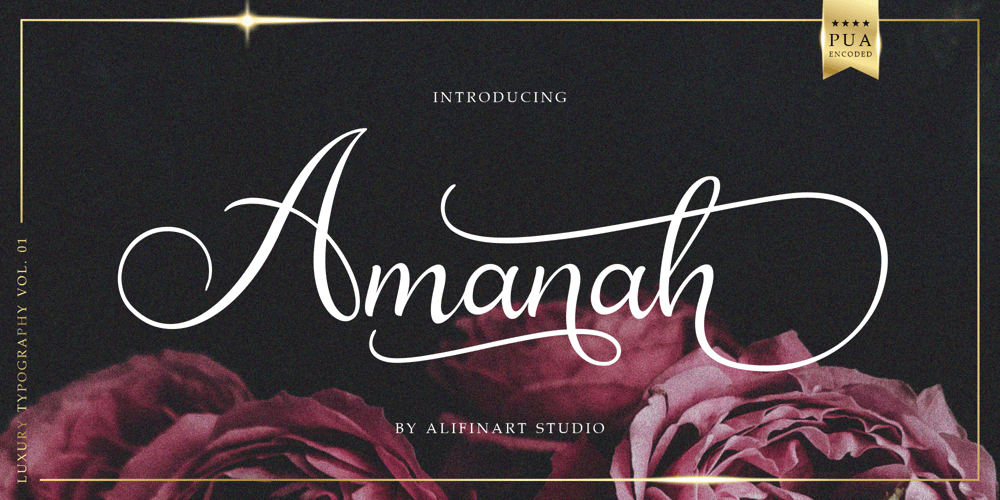
Amanah Script Font Family was designed by Alif Nuryasin and published by Alifinart Studio. Amanah Script contains 1 styles and family package options. Amanah Script is a handwritten font with a casual and modern calligraphy style. This font offers a large number of Stylistic Alternates, as well as beginning and ending swashes. This font has a total of 1660 glyphs, including capital letters, lowercase, numeral and punctuation, multilingual accents, swashes, and includes a large number of stylistic alternates and heart swashes (for lowercase letters).Amanah Script can be used for wedding card designs, invitation, best for photographer, traveling, blogging watermark or craft. Key Features:- Multilingual Accents- Stylistic Alternates up to 15 choices- Has a heart connected feature- Activate Stylistic Alternate by simply adding “period” (.) and “number” (1-15) to each lowercase letter.- Has ligature features so that the letters connect well together- Has OpenType and PUA Encodes feature.As I mentioned earlier, Amanah Script has a large number of Stylistic Alternates features, up to 15 options for lowercase letters. Interestingly, you can activate all Stylistic Alternates that are owned by each letter, just by typing; letter + period + number. For example: a.1 a.2 a.3 or b.1 b.2 b.3 and so on.As for activating the heart connected for each lowercase letters is quite easy, just by typing; letter + underscore + letter. For example: a___a or b___b and so on.If there are things you want to ask, don’t hesitate to contact my email.Alifinart Studioalifinart@gmail.comThank you.